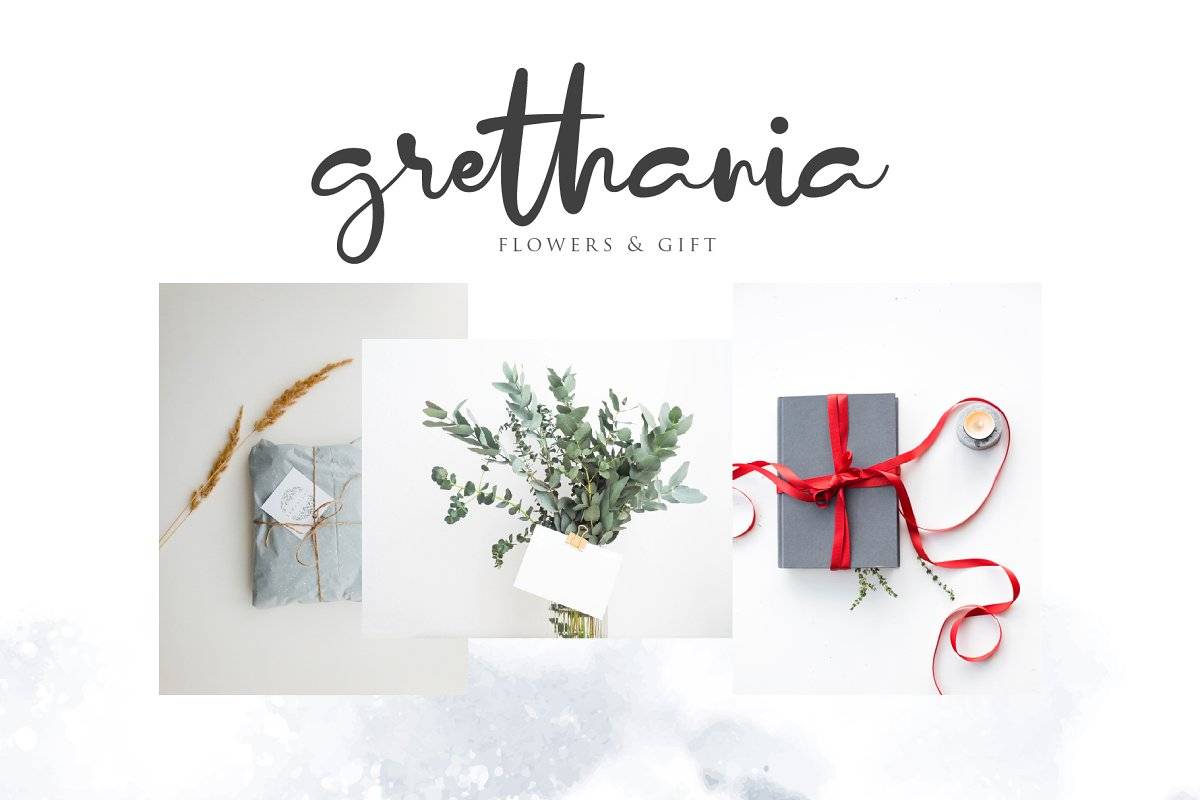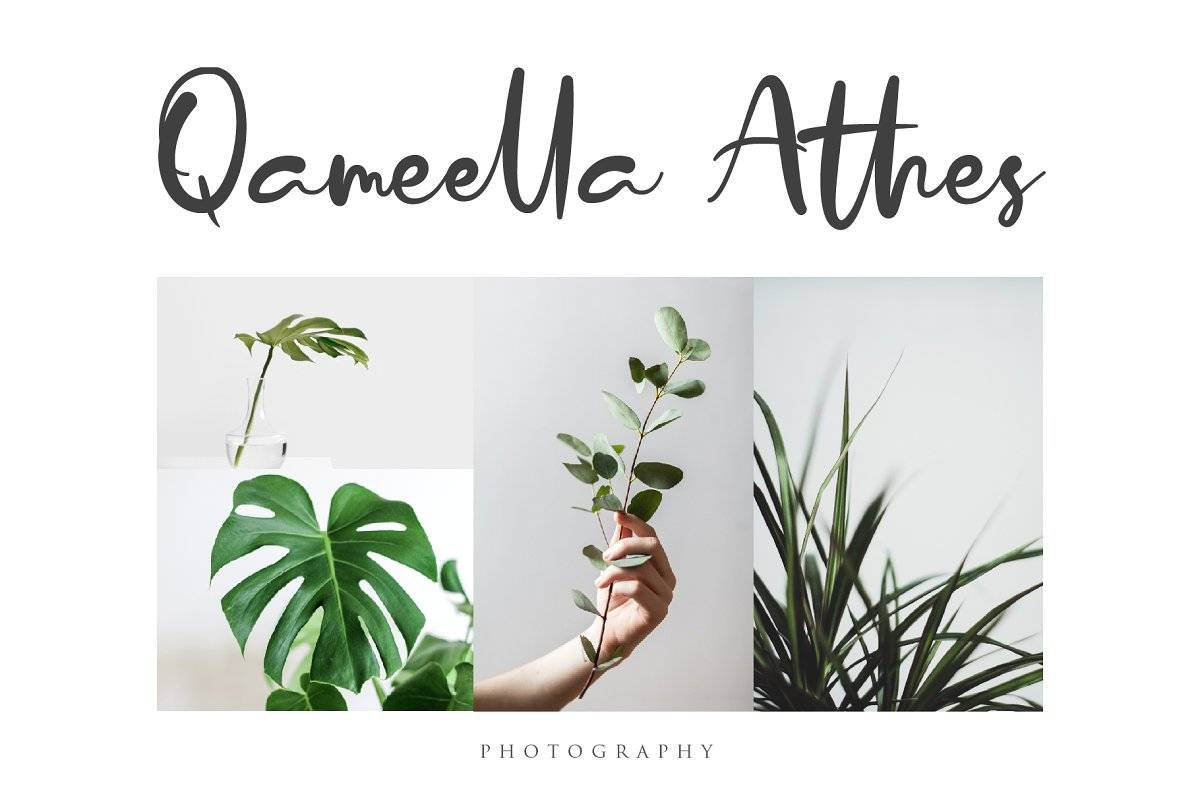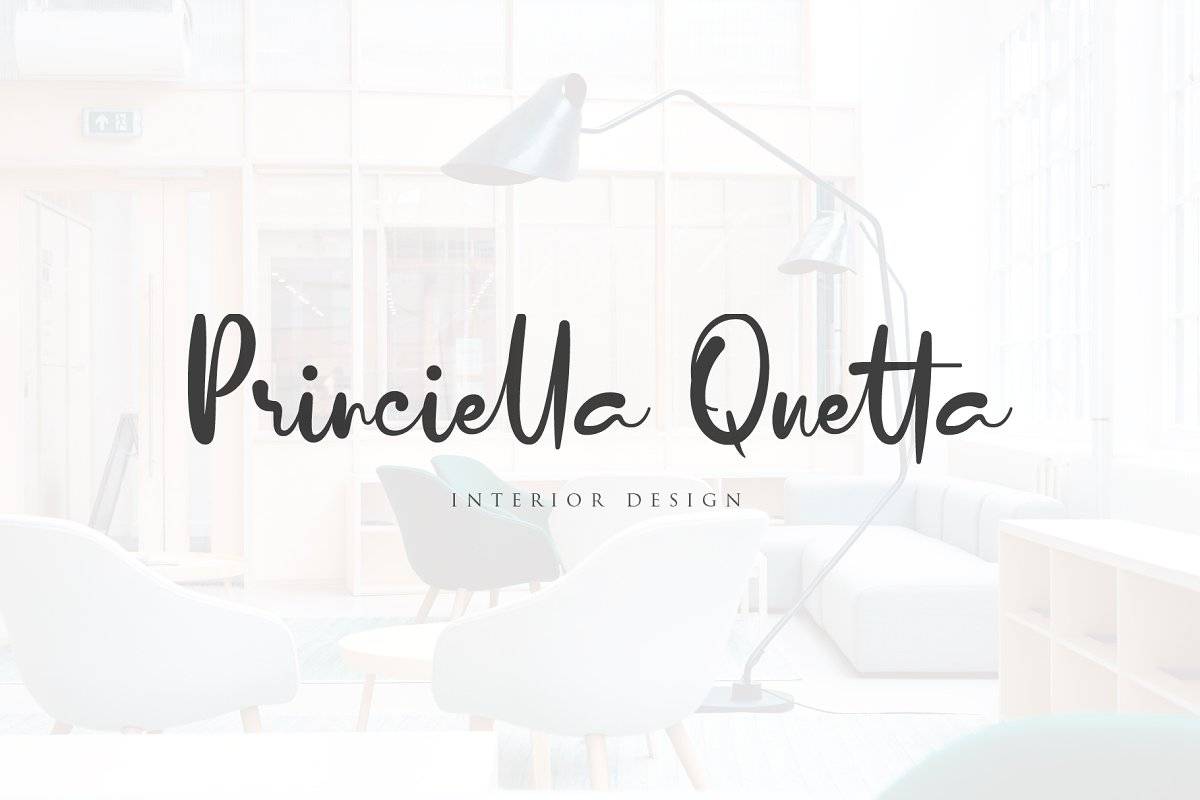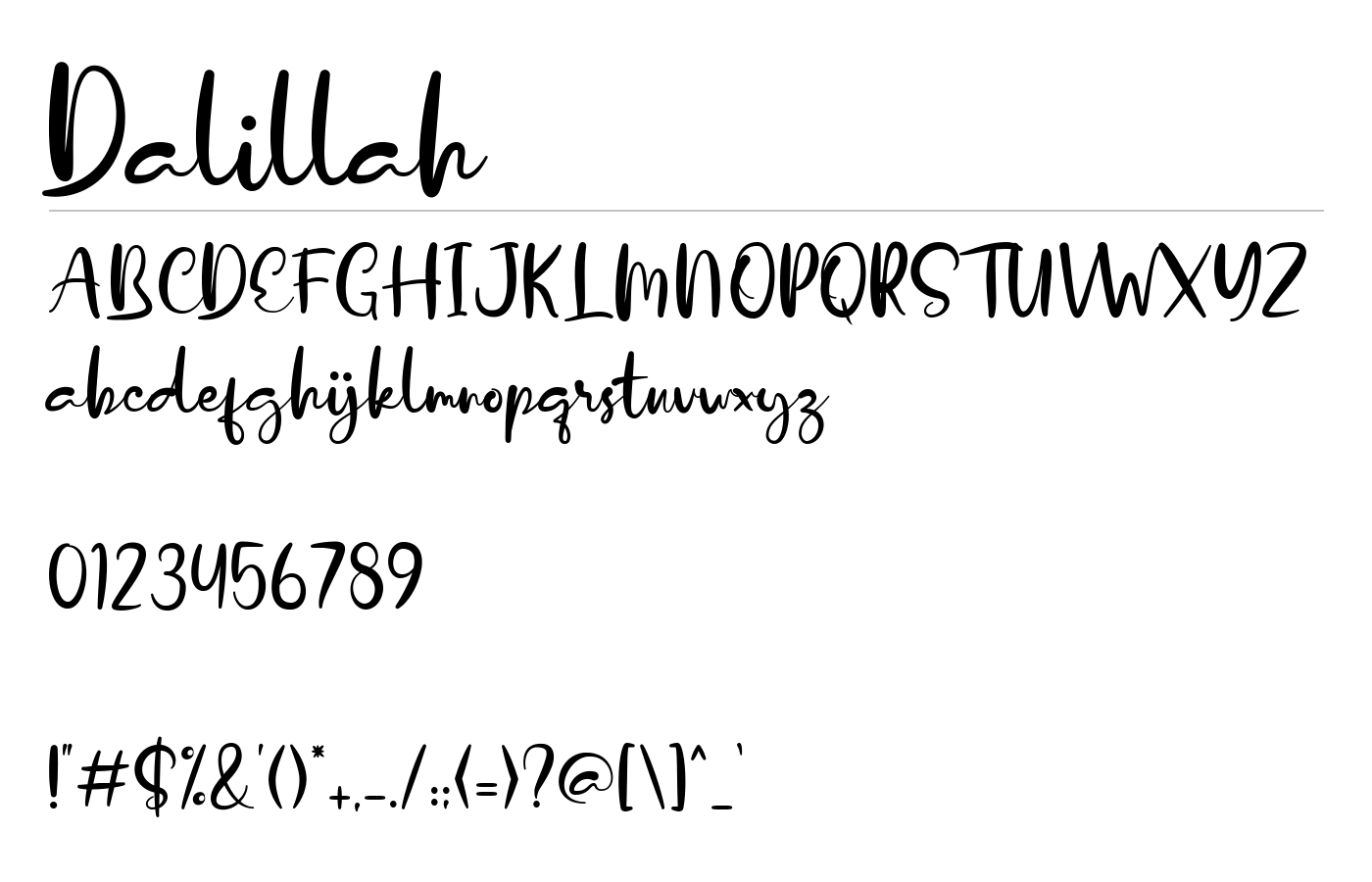
Dalillah is a lively and modern handwritten script font that combines playful charm with clear readability. Its smooth, flowing strokes and moderate contrast create an inviting, casual feel, making it ideal for creative branding, invitations, and friendly editorial projects. This font works best in designs that want to convey warmth, approachability, and a personal touch.
Dalillah Font
About Dalillah Font
| Font family | Dalillah Font |
| Designer | Sabertype Studio |